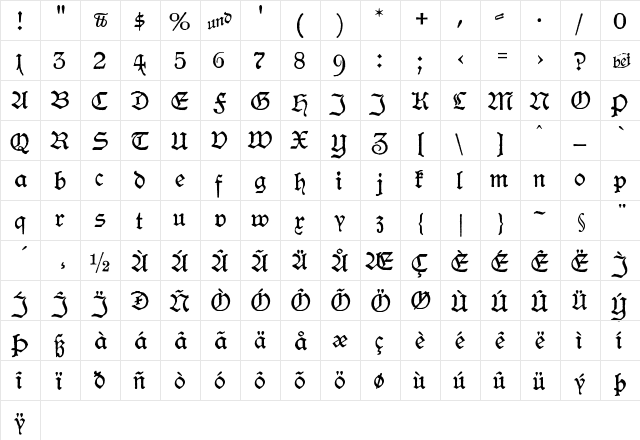
Hamburger Schwabacher Druckrauh Regular
| Foundry | Peter Wiegel |
| Designer | Peter Wiegel |
Design Context for Hamburger Schwabacher Druckrauh Typeface
Hamburger Schwabacher Druckrauh is a composed and adaptable typeface that performs quietly and consistently across a wide range of design contexts.